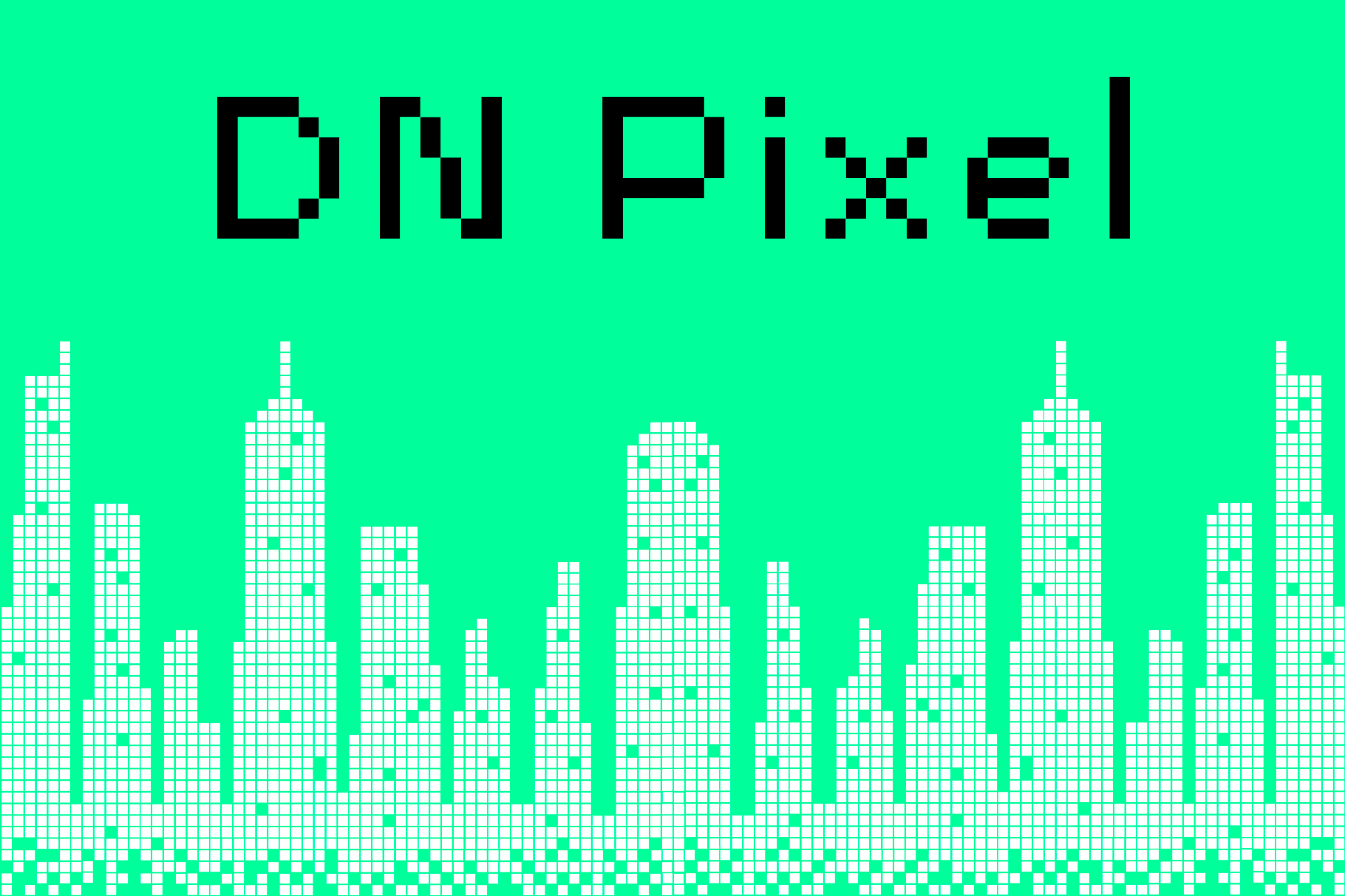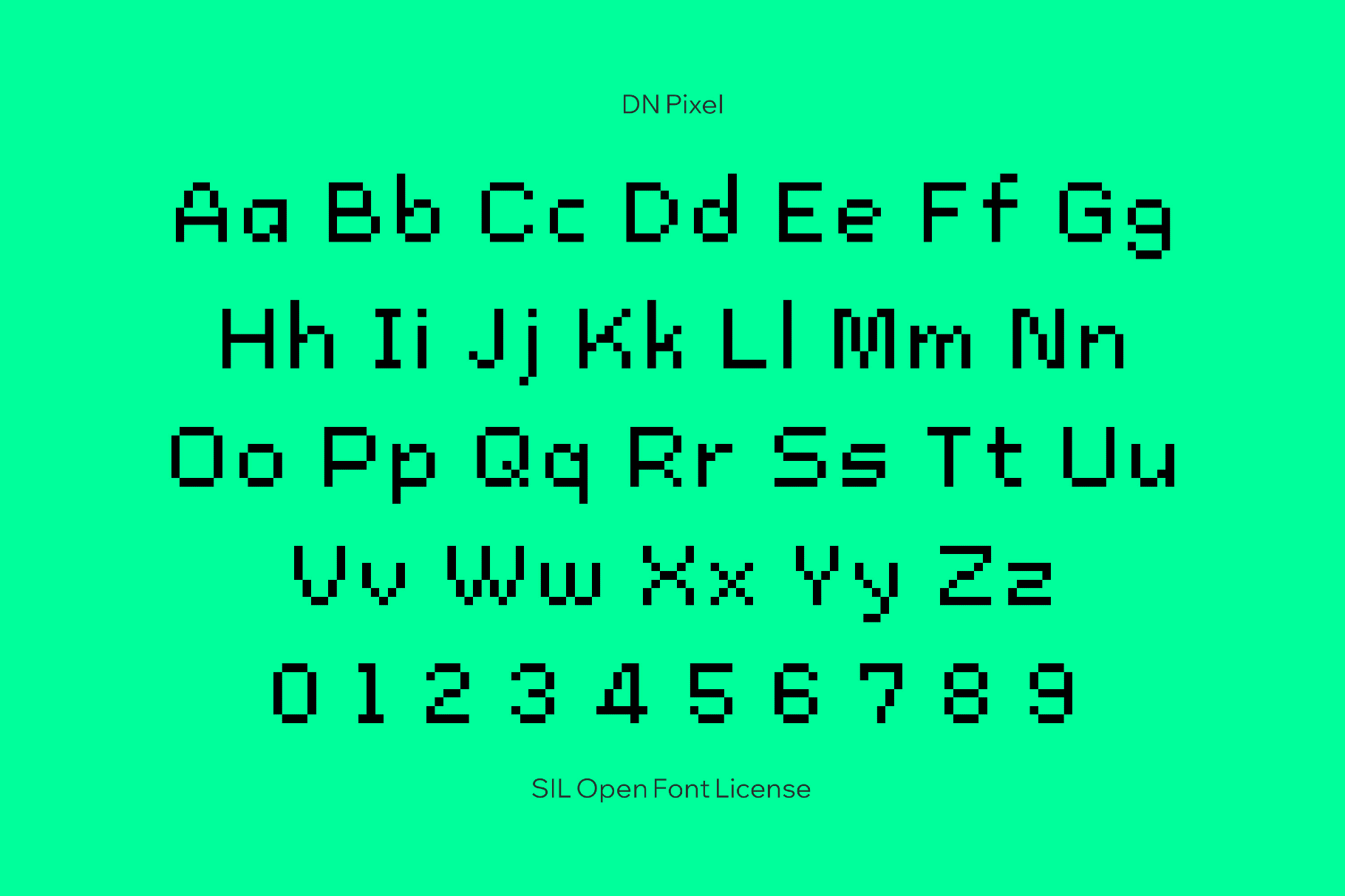
DN Pixel Font
DN Pixel is a compact bitmap sans with blocky strokes and neat spacing, drawn for simple screen text and retro-flavored headings. Letters lock into a strict grid with square corners and consistent widths. This font works well for retro game interfaces, pixel-art captions, menu systems, faux-terminal overlays, simple logos for tools or indie titles, badges and sticker designs, scoreboard-style numerals, and social visuals.